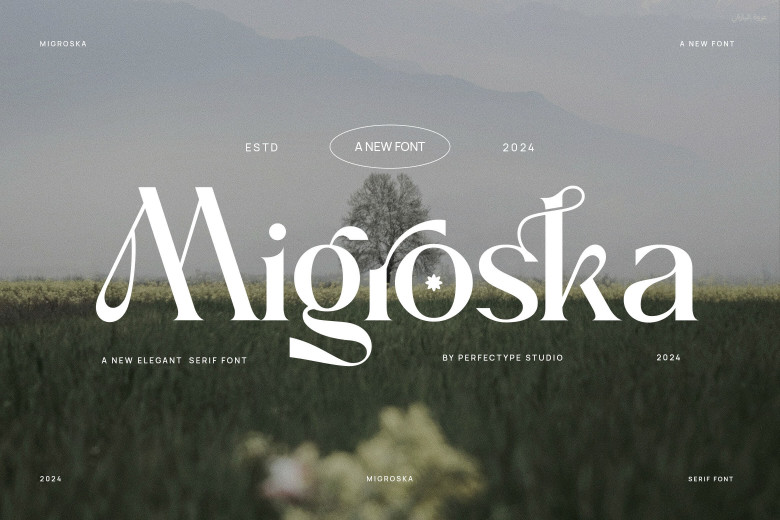
Migroska Font
Migroska is an elegant serif typeface featuring exquisite ligatures that add style and grace to any design project. Perfect for headings, logos and more, Migroska adds grace to any typeface!
Migroska Serif Font